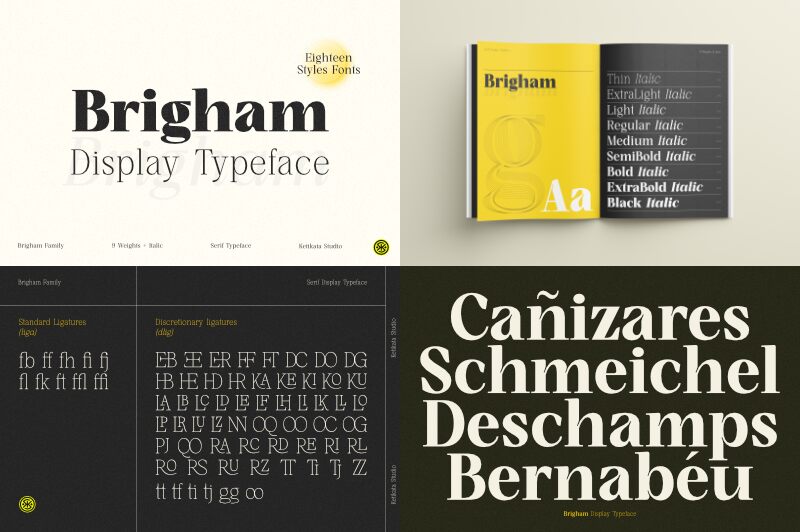
Brigham font by Ketikata Studio is an elegant serif typeface with a classic and refined appearance. Letters reflect authoritative features presented through high legibility and harmonious balance between elegance, size, and style. Its readability further gives it its professional style.
Use Brigham in educational books, newspapers, newsletters, articles, reports, novels, essays, magazines, or other printed reading materials. Don’t hesitate to make use of its authority in online platforms such as blogs and websites.